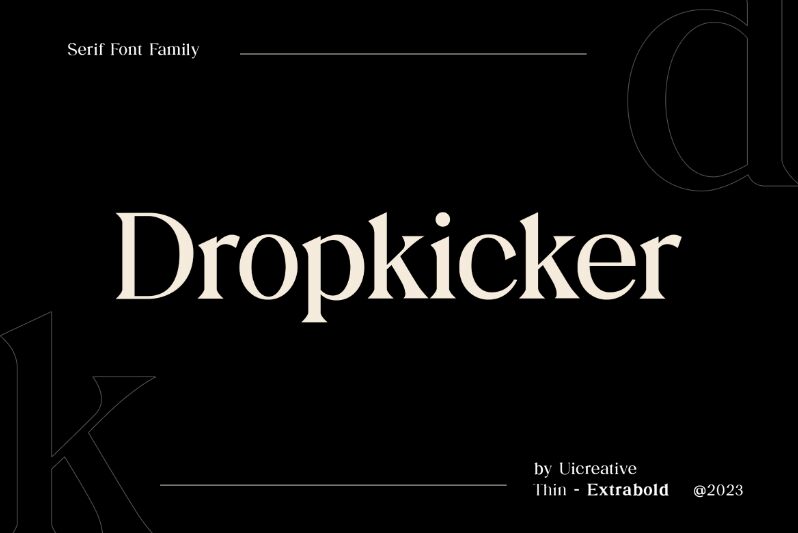
Dropkicker Regular
Dropkicker font by UI Creative is a free serif font that embodies elegance, tradition, and professionalism. A wide set of keywords successfully describe it including traditionalism, vintage appeal, and classic features. Every character manifests specialities that make the final design formal and exceptional.
Serif fonts are present everywhere around us so there should be no reason not to find the use where you intend to employ Dropkicker. An excellent place to start would be with resumes, website headers, interface elements (UI/UX), books covers or inner pages, magazines or newspaper headlines or paragraphs, and different printed promotional materials (business cards/flyers).